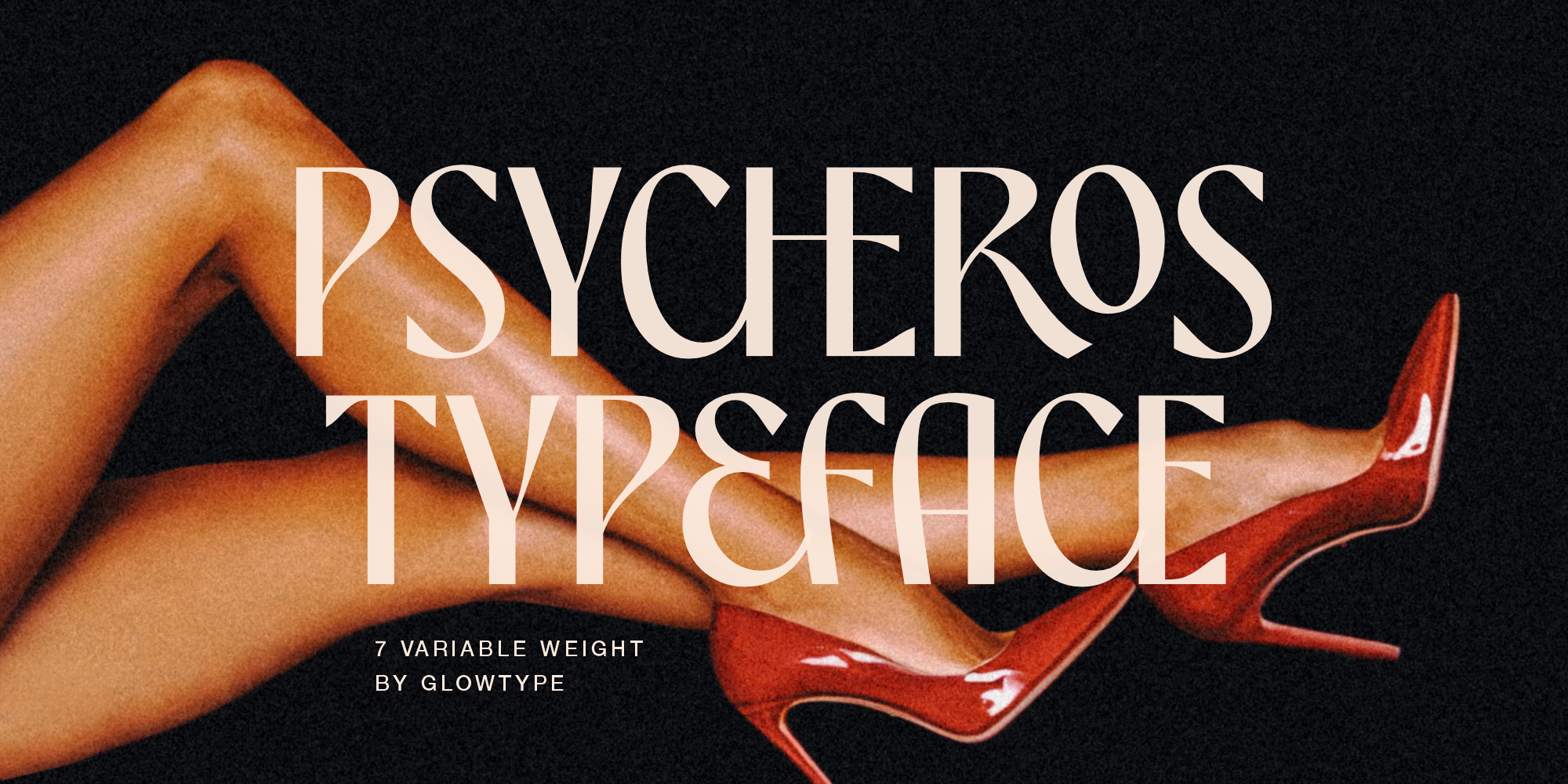
Psycheros Font is perfect for creative agencies, experimental design projects, artistic branding, music industry graphics, alternative fashion labels, and avant-garde visual communications. This distinctive typeface brings bold creativity and unconventional style to contemporary design.
Psycheros Font is exciting because it pushes the boundaries of traditional typography with its unique character shapes and experimental letterforms that challenge conventional design rules while maintaining visual coherence and distinctive personality.
The Psycheros Font family includes multiple stylistic variations and alternative character sets that enable diverse creative expression. This innovative collection provides designers with extensive options for creating memorable and unconventional typographic solutions.
Psycheros Font Free Download offers designers access to an audaciously crafted typeface that embodies creative rebellion and artistic innovation. This distinctive font features unconventional letterforms with bold character shapes that capture attention and spark curiosity through their unique design approach. The typeface combines artistic expression with functional readability, resulting in a powerful design tool that enables fresh creative possibilities for experimental projects. Its striking aesthetic makes it particularly suitable for brands and artists seeking to establish a rebellious and innovative visual identity that stands apart from mainstream design. Psycheros Font delivers exceptional impact for creative applications where conventional typography falls short of expressing artistic vision. The font's experimental nature and distinctive character make it an essential tool for designers who want to break traditional boundaries and create truly memorable visual communications that resonate with contemporary creative audiences seeking authentic artistic expression.